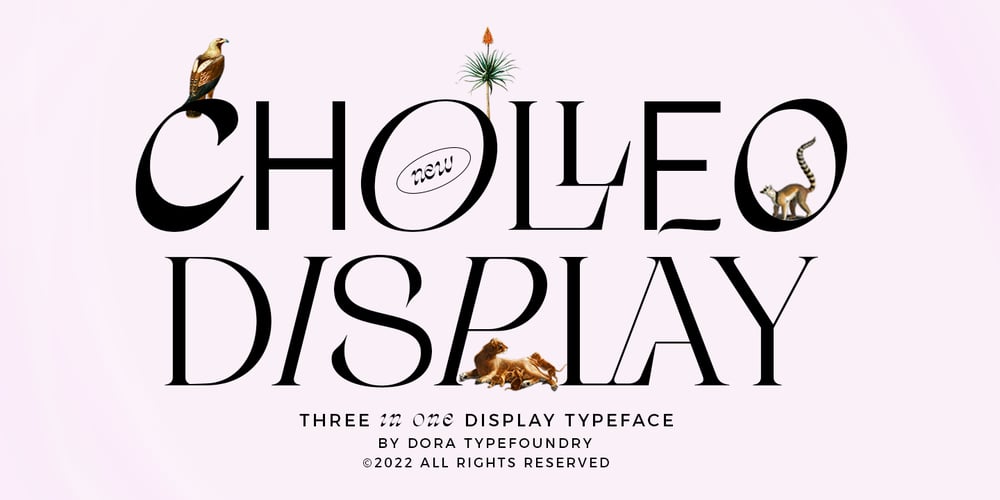
Cholleo
Cholleo font
Cholleo Font Family was designed by Zahratul Laila and published by Dora Typefoundry. Cholleo contains 1 styles and family package options. Cholleo Display is a unique modern sans and serif type in different mixed types to combine in one font, it is recommended you can use this font for magazines, posters, logos, titles, quotes and suitable for headlines.which makes your text stand out! you can see on the picture.What you will get: All Caps Letters with different uppercase and lowercase letters Italic version as an alternative. Number & Symbol Multilingual support PUA Encoded This type of family has become a work of true love, making it as easy and enjoyable as possible.I really hope you enjoy it!Thank you